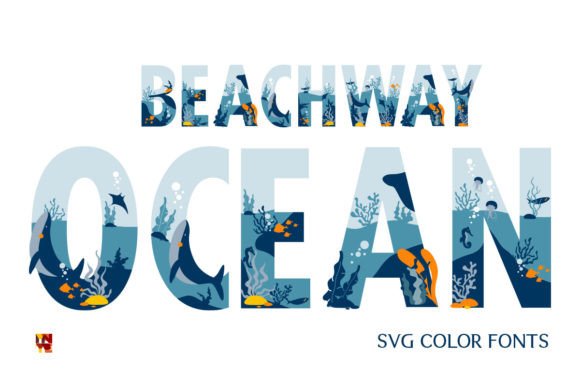
Looking for a unique and creative way to elevate your design projects? Look no further than Beachway Ocean Font, a colorful and artistic SVG color font created by heypentype.
This font is the perfect choice for those looking to add a cool and fresh vibe to their projects. With rich illustrations featuring an oceanic landscape and cute creatures, this font is sure to make your designs stand out.
One of the best things about Beachway Ocean Font is its versatility. It's perfect for vacation, summer, or holiday-themed posters, t-shirts, and other creative projects. Plus, it's compatible with popular design software like PhotoShop, Illustrator, Silhouette, and Inkscape.
But what really sets Beachway Ocean Font apart is its amazing color palette. With a wide range of vibrant and eye-catching colors, this font is sure to capture the attention of your audience and bring your designs to life.